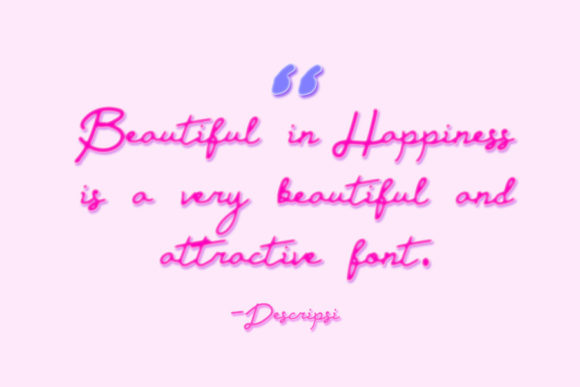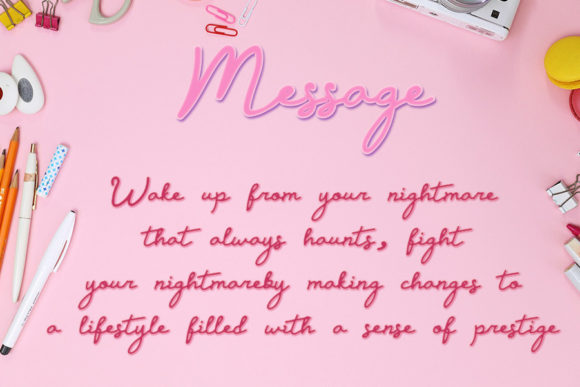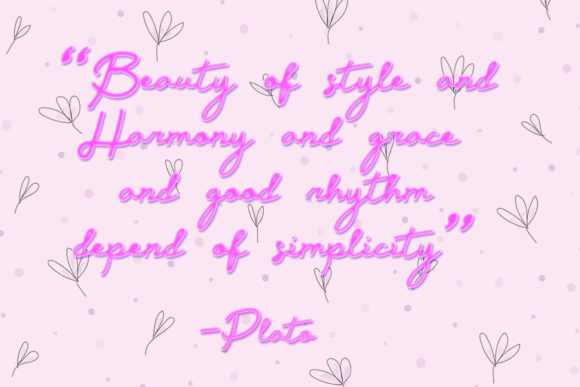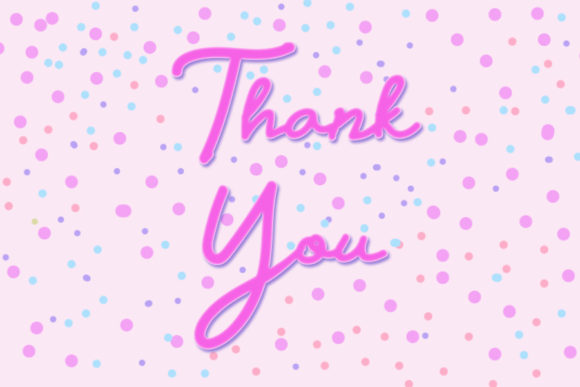
Discover the Sweetness of Beautiful in Happiness Font
Have you ever found yourself lost in a sea of creative possibilities, searching for that perfect font to bring your design to life? You know, that moment when everything clicks, and you envision a beautiful, hand-drawn script that adds a touch of magic to your project? That’s exactly what I’m about to share with you – a font that will transport your designs to a world of whimsy and romance.
Meet the Beautiful in Happiness Font, a stunning cursive handwritten font designed to add a joyful and romantic touch to your projects. With its gentle curves and playful strokes, this font is perfect for designers looking to create a sweet and sentimental atmosphere in their designs. Whether you’re working on a wedding invitation, a birthday card, or a romantic quote, Beautiful in Happiness Font is sure to make your project stand out.
Beautiful in Happiness Font Key Features
- Font Family: Beautiful in Happiness Font is a script font family designed to evoke feelings of happiness and joy.
- Unique Characteristics: Features flowing, handwritten connections and subtle flair, giving it a personal and emotive feel.
Designer Review: Beautiful in Happiness Font
I recently had the chance to work with the “Beautiful in Happiness Font” and I must say it’s a mixed bag. ✨ The font’s most notable feature is its playful and cheerful vibe, making it perfect for projects that need a touch of whimsy. The font is also highly legible, even at smaller font sizes, which is a big plus in my book.
- ✨ Unique and quirky design that sets it apart from more common fonts
- ✨ Highly legible, even at smaller font sizes
- ✨ Great for projects that need a playful and cheerful tone
However, there are some limitations to consider. ⚠️ The font’s character set is somewhat limited, which may be a problem for projects that require a wide range of characters. Additionally, the font’s weight and style options are not as extensive as some other fonts I’ve worked with.
- ⚠️ Limited character set may be a problem for some projects
- ⚠️ Weight and style options are not as extensive as some other fonts
Overall, I think the “Beautiful in Happiness Font” is a solid choice for projects that need a playful and cheerful tone. While it may not be the best choice for every project, it’s definitely worth considering if you’re looking for something a little different.
Getting the Most Out of the Beautiful in Happiness Font